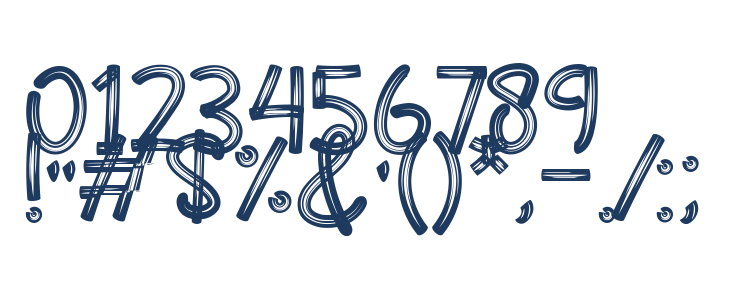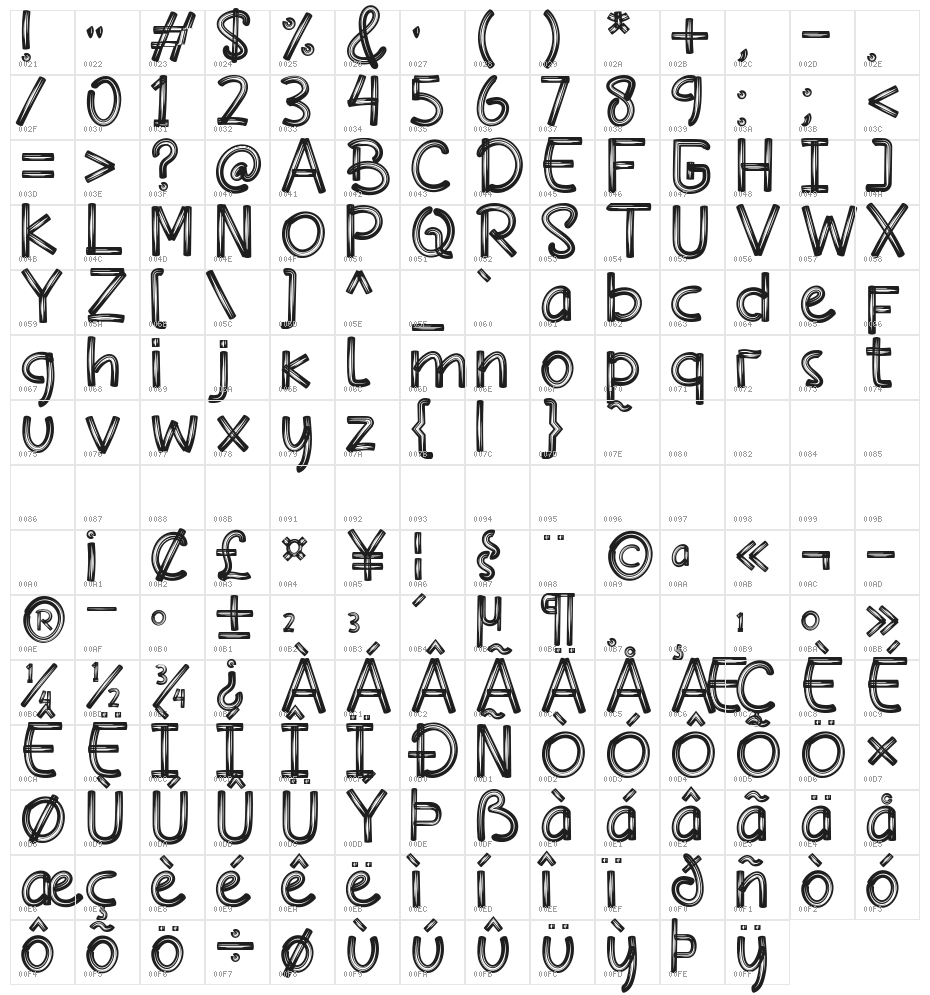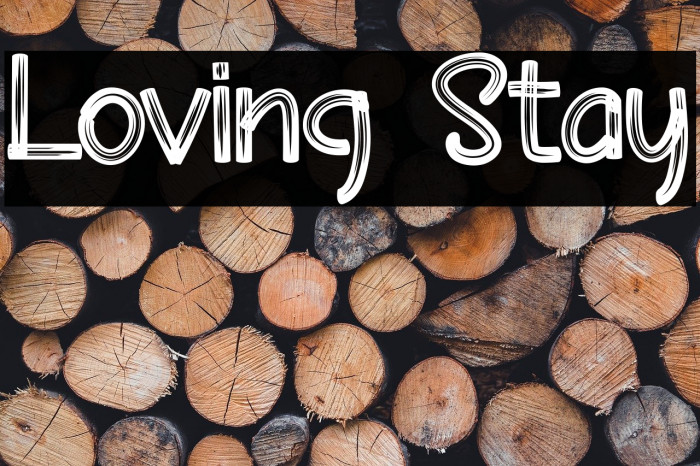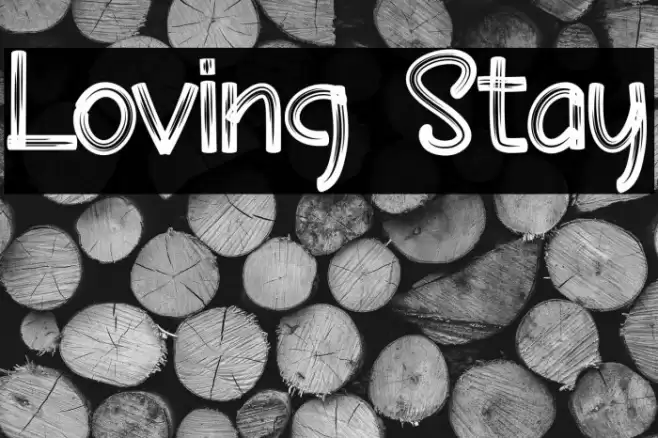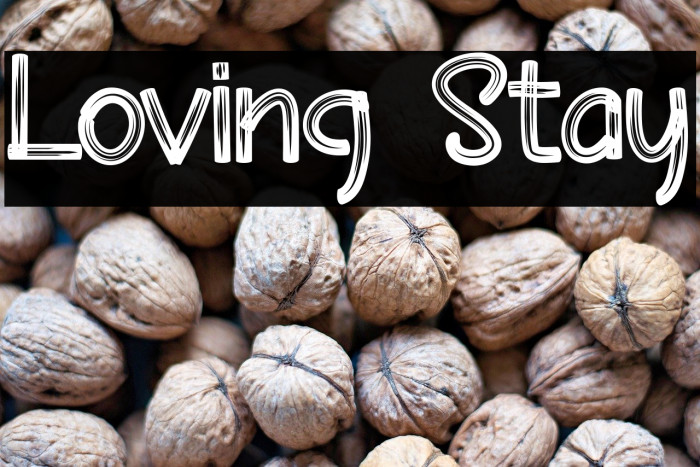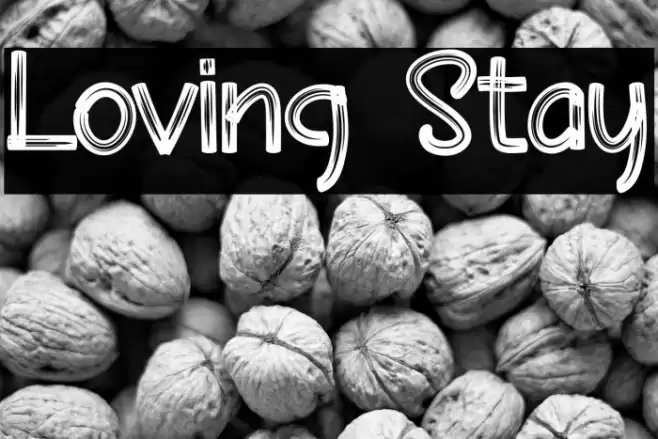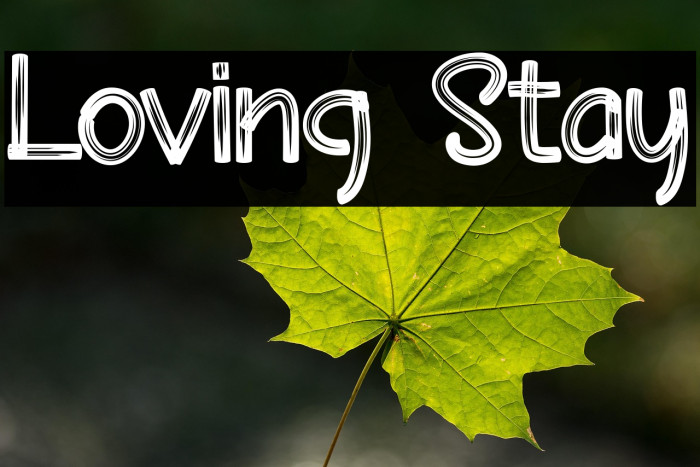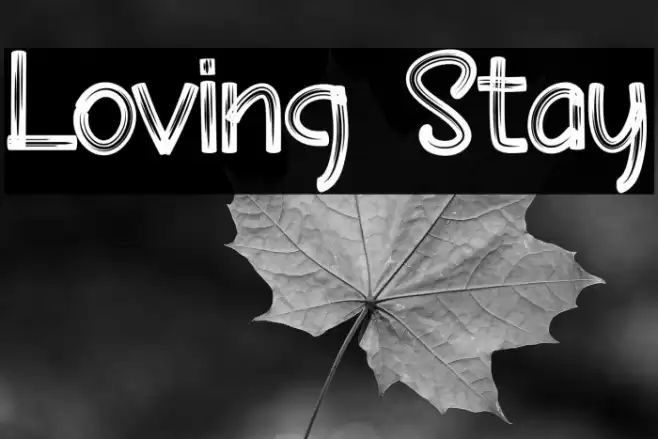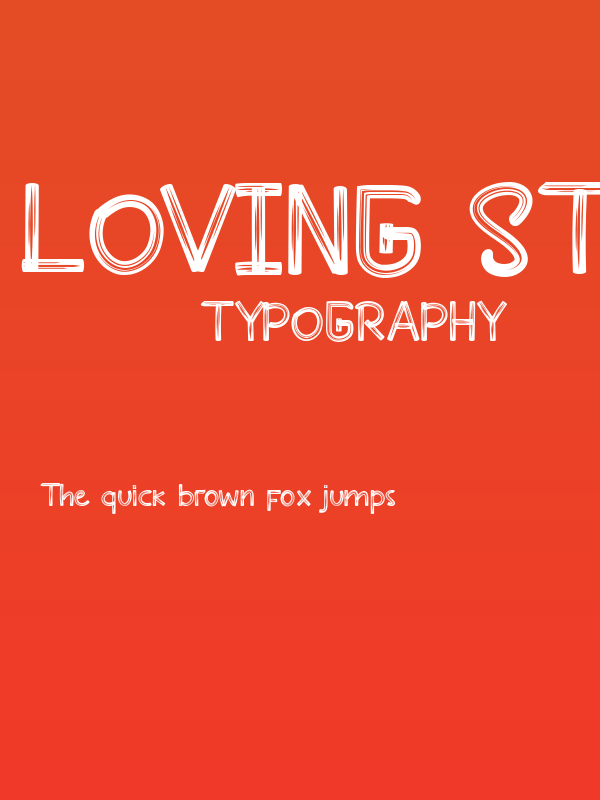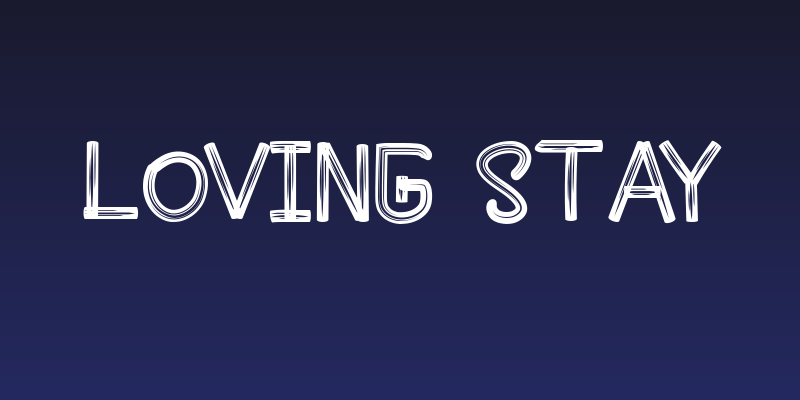
Loving Stay Font
Loving Stay Description
This playful and artistic font features a hand-drawn style with a unique, sketch-like appearance. Each character is outlined with a bold, uneven stroke, giving it a whimsical and informal feel. The uppercase and lowercase letters maintain a consistent style, with rounded edges and a slightly irregular form that adds to its charm. Numbers and special characters are equally expressive, making this font versatile for creative projects. Its distinct personality makes it stand out, perfect for designs that require a touch of fun and creativity.